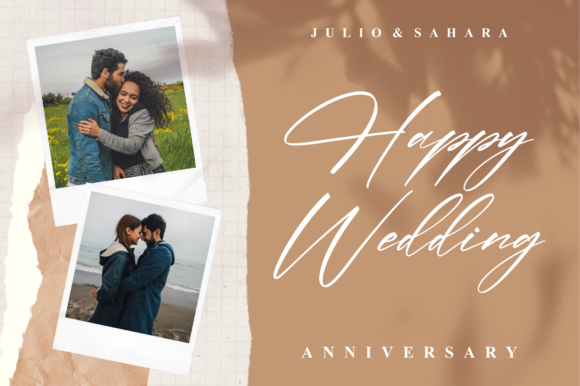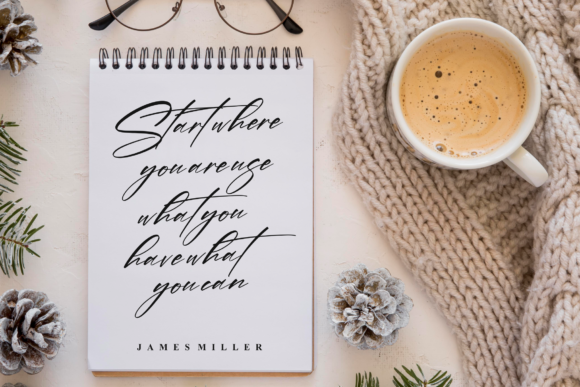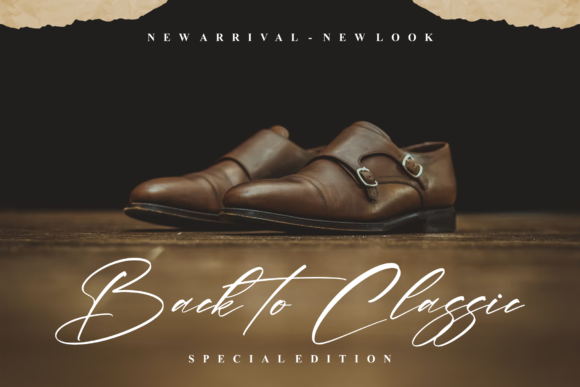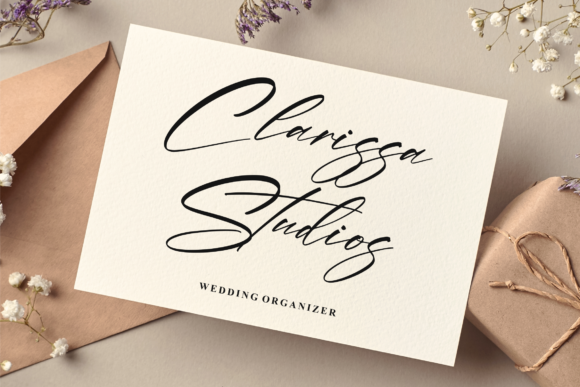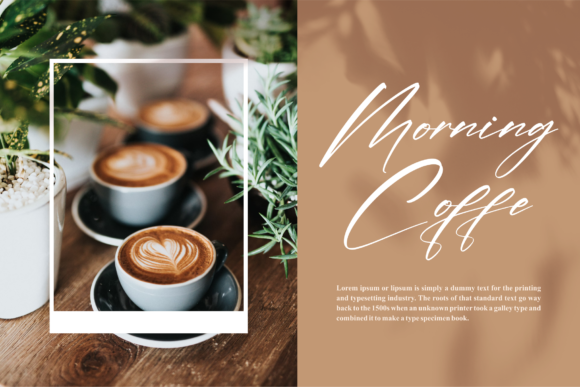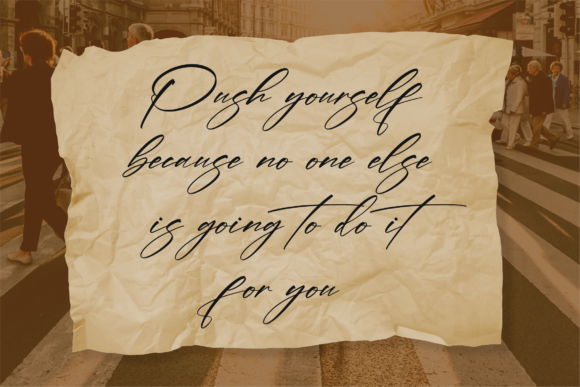
Introduction to Mantasia Font
Mantasia is a lovely, elegant and unique script font.
Fall for its ravishing style and use it to create gorgeous wedding invitations, beautiful stationary art, eye-catching social media posts, and much more .